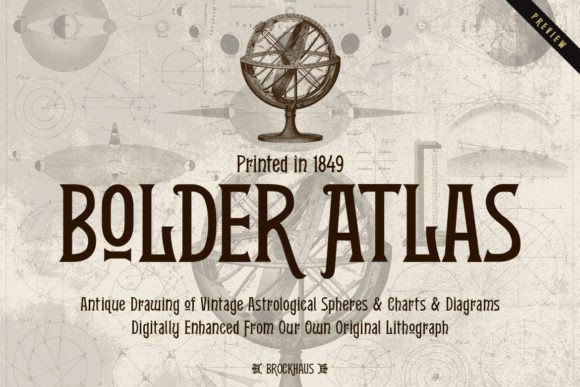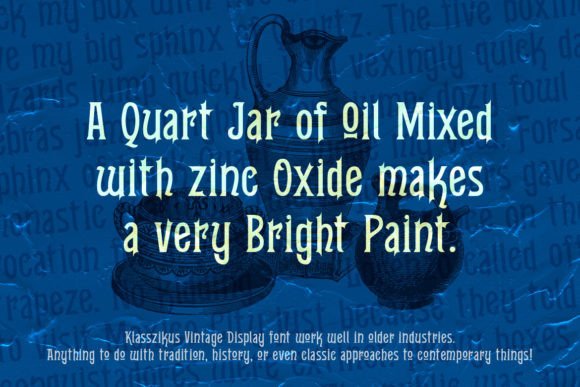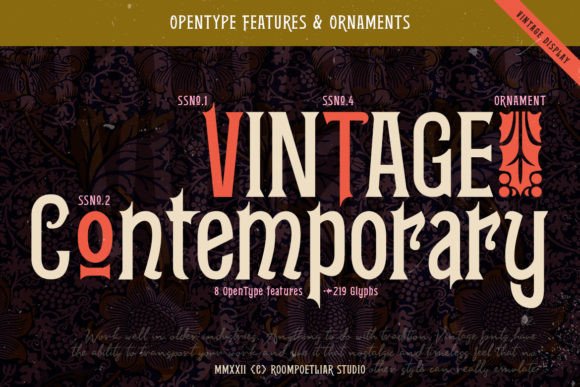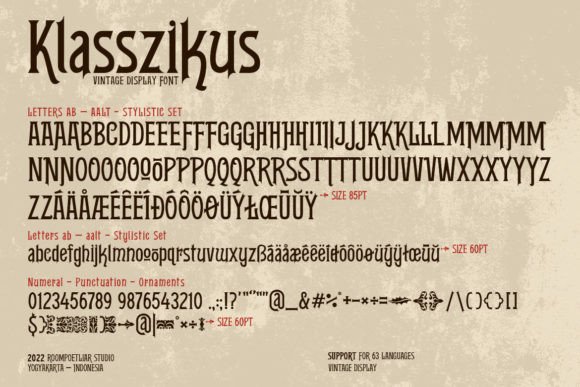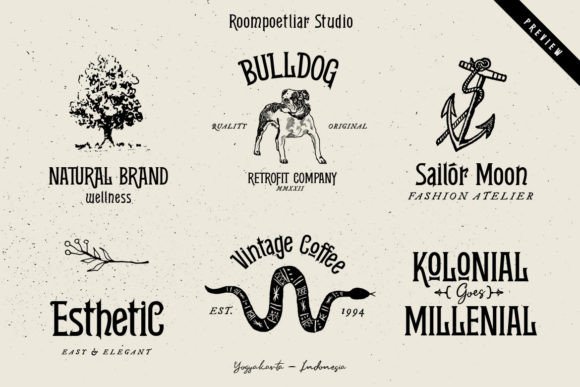
Timeless Elegance: Unlocking the Power of Klasszikus Font
You’re browsing through your favorite design inspiration boards, and suddenly, you stumble upon an old, vintage advertisement that catches your eye. The elegant typography, the classic layout, and the nostalgic feel all come together to create a sense of timelessness that speaks to you on a deeper level. This is the magic of Klasszikus Font – a stunning vintage display font that adds a touch of sophistication and tradition to any design project.
Klasszikus Font is designed to transport your audience to a bygone era, evoking feelings of nostalgia and refinement. With its elegant lines and classic charm, it’s the perfect choice for designers looking to add a unique touch to their work. Whether you’re creating promotions, logo art, social media posts, or greeting cards, Klasszikus Font is sure to elevate your designs to the next level.
Klasszikus Font Key Features
- Font Family: Klasszikus is a serif font family designed to evoke a sense of classic elegance.
- Unique Characteristics: Distinctive x-height, elegant serifs, and a classic feel that sets it apart from other serif fonts.
Klasszikus Font Review
First of all, I’d like to say that Klasszikus Font has a certain charm to it ✨. The classic feel and elegant design make it perfect for projects that need a touch of sophistication. The font is well-balanced and easy to read, even at smaller sizes.
Here are some of the things that I like about Klasszikus Font:
- ✨ Elegant design that adds a touch of class to any project
- ✨ Well-balanced and easy to read, even at smaller sizes
- ✨ Perfect for projects that need a classic feel
However, there are a few limitations to consider ⚠️:
- ⚠️ Limited character set, which may not be ideal for projects that require a wide range of characters
- ⚠️ Not suitable for projects that need a lot of emphasis on bold or italic text
- ⚠️ May not be the best choice for projects that require a lot of dynamic text
Overall, I think Klasszikus Font is a solid choice for projects that need a classic feel. While it may not be the best choice for every project, it’s definitely worth considering if you’re looking for a font that adds a touch of elegance and sophistication.
Tips for Getting the Most Out of Klasszikus Font
Use Klasszikus Font for titles and headings to add a touch of elegance and sophistication.
Pair Klasszikus Font with other serif fonts for a classic and timeless look.
Use Klasszikus Font for:
Business cards and stationery
Wedding invitations and announcements
Book covers and publishing materials
Alternatives to Klasszikus Font
Playfair Display is a luxurious and elegant font, ideal for use in titles, headings, and other high-impact text elements. It’s perfect for creating a sense of sophistication and refinement in your designs.
Compared to Klasszikus Font, Playfair Display has a more refined and luxurious feel, making it suitable for high-end branding and advertising.
Bodoni Moda
Bodoni Moda is a classic serif font with a strong, elegant feel. It’s great for use in body text, headings, and titles where you want to create a sense of tradition and sophistication.
Compared to Klasszikus Font, Bodoni Moda has a more classic and timeless feel, making it suitable for use in a wide range of design contexts.
Didot is a luxurious and elegant font with a strong, refined feel. It’s perfect for use in titles, headings, and other high-impact text elements where you want to create a sense of sophistication and glamour.
Compared to Klasszikus Font, Didot has a more refined and luxurious feel, making it suitable for high-end branding and advertising.
Garamond
Garamond is a classic serif font with a strong, elegant feel. It’s great for use in body text, headings, and titles where you want to create a sense of tradition and sophistication.